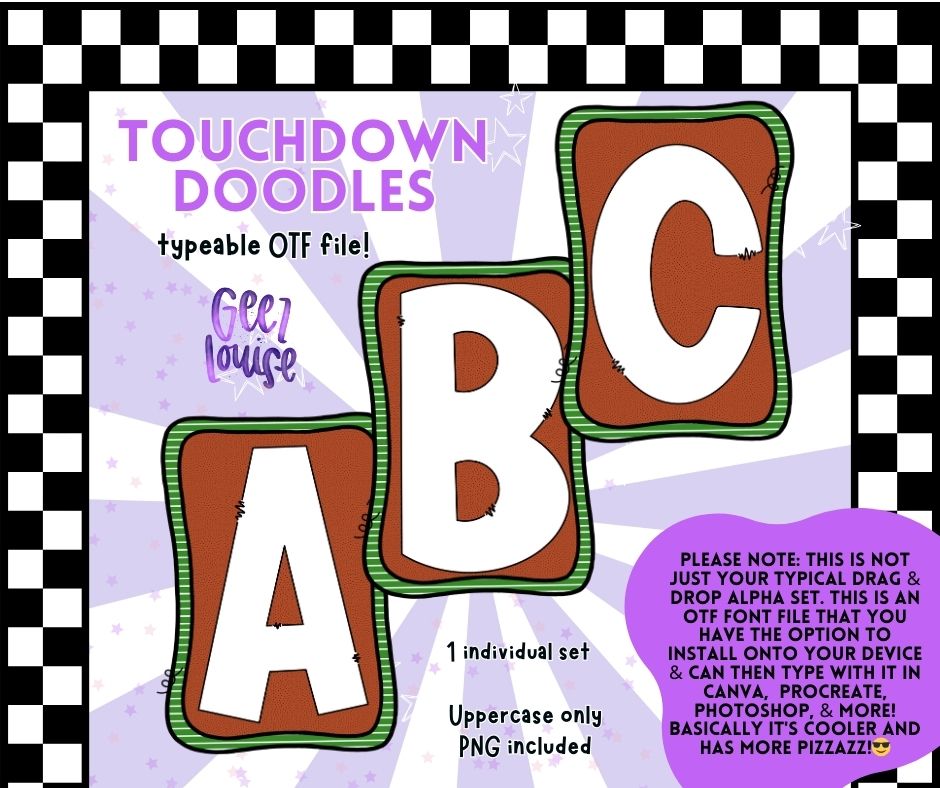
Touchdown Doodles OTF Font + PNG Alpha Set
Bring the game-day vibes straight to your creative projects with Touchdown Doodles! 🏈 This fun and quirky OTF alpha set features bold uppercase letters with a sporty football texture and playful border, perfect for back-to-school, teacher themes, sports merch, or classroom decor.
All uppercase letters
Crisp details with hand-drawn flair
Whether you’re customizing shirts, classroom bulletin boards, or game-day graphics, this font has major MVP energy.